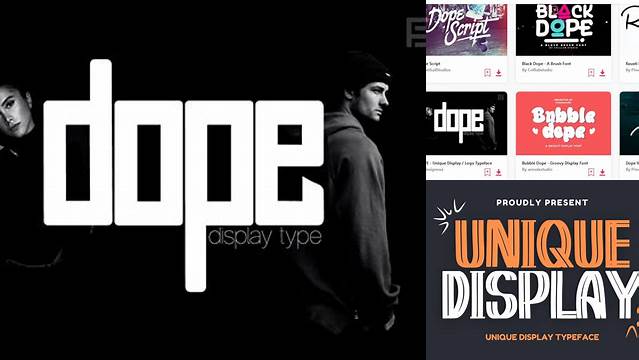
Dope Unique Display Fonts: Free Download Guide & Top Picks
Hey design enthusiasts! Are you on the hunt for some seriously dope unique display font free download options to elevate your projects? Look no further, because we're diving headfirst into the world of eye-catching typography. Whether you're a seasoned designer, a budding creative, or just someone who loves a good font, this guide is your ultimate resource. We'll explore the coolest fonts, where to find them, and how to use them to make your work pop. Get ready to transform your designs from blah to brilliant with the power of a killer font!
1. Unleashing the Power of Display Fonts: What Makes Them Unique?
Alright, guys, let's talk about display fonts. What exactly are they, and why are they so awesome? Unlike those trusty body fonts you use for paragraphs, display fonts are all about making a statement. They're the bold headlines, the eye-catching titles, the elements that instantly grab your attention. They're designed to be seen, to be noticed, and to inject personality into your work. Dope unique display font free download choices are your secret weapon for creating designs that stand out from the crowd. These fonts often feature distinctive styles, elaborate details, or unconventional designs that are far from the everyday. This means they can bring an artistic flair to posters, websites, logos, and any project that needs a touch of visual flair. A well-chosen display font can communicate tone and style at a glance, conveying everything from a modern feel to a vintage vibe. It is important to remember that the right display font can be the cornerstone of a successful design. Think about how a unique typeface can shape the impression your project gives; it's like the ultimate visual introduction. Plus, they often include creative ligatures and alternate characters, allowing for even more customization and artistic expression. From sleek and minimalist to bold and elaborate, the possibilities are endless when you start using display fonts!
One of the main advantages of using display fonts is their capability to set the mood. They are much more than just letters; they are visual representations of emotion and aesthetic. When selecting a display font, think about the message you wish to convey. A sleek, modern font might be ideal for a tech startup, while a retro font could be perfect for a vintage-themed event. The design world is changing, and a dope unique display font free download lets you experiment and get your message across. Because they're meant for short bursts of text, they can be bolder, more intricate, and playful than fonts that have to work for a large body of text. They're your secret weapon for creating something fresh and memorable. These fonts create an emotional connection with your audience and make your designs unforgettable. So, whether you're working on a personal project or a professional campaign, display fonts can change everything. The use of display fonts is an excellent way to turn your work into an original piece. This not only highlights the aesthetic appeal of the design but also strengthens the overall message. So, next time you're looking to give your project a boost, remember the power of a dope unique display font free download!
4. Top Display Font Styles: Trending and Timeless Options
Let's talk styles, shall we? The world of display fonts is vast and diverse. There are a ton of amazing options available. Here are some of the most popular styles, plus some options for your very own dope unique display font free download experience. First off, we have serif fonts. These are classic and elegant, with small strokes at the end of the letterforms. They bring a sense of tradition and sophistication to your designs. Then there's the sans-serif fonts. These are clean, modern, and perfect for a minimalist aesthetic. They lack the strokes and are great for readability, especially on screens. We also have script fonts. These mimic handwriting and add a touch of personality and flair to your designs. They're perfect for invitations or anything that needs a personal touch. Now for bold and chunky fonts, which make a statement. They're great for grabbing attention, perfect for headlines and logos. Finally, we have retro and vintage fonts, which add a nostalgic feel to any project. They're often inspired by older design styles. When choosing a display font, consider the overall tone of your project. Select a font that complements your message and target audience. Experimenting with different styles is key to finding the perfect fit for your project. Each style has its own unique vibe, allowing you to create designs that capture your intended emotion. Always consider your audience and the intended function of your design. Don’t forget that the possibilities are endless, so explore and see what works best for you! You can experiment with different combinations of fonts until you find the perfect match. With these display styles and free font options, you're well on your way to finding a dope unique display font free download to meet your project's needs.
5. Pairing Display Fonts with Other Typefaces: A Guide to Harmony
Guys, choosing a display font is just the beginning. A great design often involves pairing it with other typefaces. Display fonts work best for headlines or short bursts of text. However, you will need to complement them with other fonts for body text, subheadings, and other design elements. The key is balance and harmony. Avoid using too many different fonts in one project. This can make the design look cluttered and disorganized. Aim for a maximum of two or three font families. Consider choosing a font that has a display and a text version. This helps maintain consistency throughout your design. Contrast is your friend. Pair a bold display font with a clean, readable body font. The contrast can make the design pop. When you are searching for a dope unique display font free download, think about what you want to pair with it. Some fonts are designed to be used together; explore the font family to see the available styles. Make sure your fonts work well together. Look for combinations that feel right and create a unified design. Think about the overall message of your design. Is it modern? Is it classic? Your fonts should reflect that message. Experiment with different pairings until you find what suits you. Think about your design's readability. The goal is to give your audience an easy time to read your design, so readability is very important. By mastering the art of font pairing, you can create a design that is both visually appealing and easy to navigate. That balance ensures the message gets across clearly and effectively. Remember to choose fonts that create a cohesive design, so the audience can understand your intention. With the right combination, your project will be a success, especially with the help of a dope unique display font free download.
6. Display Fonts for Logos and Branding: Making a Statement
Logos and branding are all about making a lasting impression. Choosing the right display font can play a huge role in setting your brand apart. When it comes to logo design, the display font is often the star of the show. This is your chance to create a unique identity that people remember. Your logo is more than just text; it is a visual representation of your brand's personality and values. A well-chosen display font can communicate professionalism, creativity, or anything else you're trying to convey. Before you dive into the world of dope unique display font free download, consider your brand's values and mission. What feeling do you want your logo to evoke? Is it modern, vintage, or something in between? This will guide you in the selection of fonts. Pay attention to the specific features of your font, like the shapes, weights, and special characters. Choose a font that aligns with your brand's aesthetic. Use the logo font across your branding materials, such as your website, business cards, and social media profiles. Consistency is key! Test out the font in different contexts, such as different sizes and backgrounds. The font should be readable and recognizable in all situations. A well-crafted logo using a dope unique display font free download will help you create a brand identity that lasts. The logo you choose will stay with you throughout your branding efforts.
7. Display Fonts for Web Design: Readability and Aesthetics
Web design is a delicate balance of aesthetics and functionality. Display fonts can add a touch of personality to your website. The trick is to do so without sacrificing readability. A visually appealing website attracts visitors and keeps them engaged. Start by making sure your display font is readable on different devices and screen sizes. Responsiveness is a must in web design. Your website will need to adapt to different screen sizes. This means ensuring that the display font is readable on mobile devices as well as desktops. Consider the size and spacing of the font. The font should be large enough to read easily. Adjust the line spacing, or leading, so that the text doesn't look cramped. Balance the display font with a readable body font. Your body text should always be easy to read. Look for a font that complements the display font. Test the font on different backgrounds. It should still be readable. If your display font is unique and bold, keep the body font simple and clear. This will ensure that the content remains accessible and easy to read. When you're searching for a dope unique display font free download, keep the user experience in mind. You should think about the user experience. Remember, the goal is to deliver a website that is both attractive and easy to navigate. A great website is attractive and also keeps the audience engaged. With the proper display font choices, you can create a website that will be both engaging and visually appealing. By using the right font, you can make sure your content is read and enjoyed. That is why, when designing your website, a dope unique display font free download will make it visually appealing and functional.
8. Display Fonts for Posters and Flyers: Creating Visual Impact
Posters and flyers are designed to grab attention, and your choice of font plays a crucial role in their success. Whether it is a promotional event or a community announcement, the right font can make all the difference. Display fonts are the perfect tool for making your posters and flyers stand out. Use bold and unique fonts to capture attention and set the tone. When designing posters, consider the visual hierarchy. The most important information should be bold and prominent. Use larger font sizes for headlines and subheadings, and smaller fonts for body text. Select fonts that complement the message of the poster. Match the font to the event. The goal is to make the most of the design. Make sure the font is legible. People need to read it quickly. Ensure your font looks good on different backgrounds and at a range of sizes. Try experimenting with different font combinations. A well-chosen font can complement the overall design and convey your message effectively. Your posters and flyers are a great chance for a dope unique display font free download and a chance to make your statement. Always make sure that the font aligns with your design. A well-crafted poster can make the difference in the success of your event, so you can achieve your goals. When you choose a font, make sure it communicates your message effectively. These things are important for a successful design. Remember to find the perfect dope unique display font free download for your design needs.
9. Display Fonts for Social Media: Captivating Your Audience
Social media is all about visual storytelling, and your font choices can significantly impact how your content is perceived. Display fonts are a great way to capture your audience's attention and make your posts stand out. When designing social media content, remember that you need to capture attention quickly. Use bold and eye-catching fonts for headlines and key information. Ensure that the font is easy to read on smaller screens, like your mobile phone. Test the font on different backgrounds. If you are looking for a dope unique display font free download that looks good on social media, consider the platform's aesthetics. Each platform has its own visual language, so make sure your font choices align with the platform's style. A consistent brand identity across your social media platforms is a must. Use the same fonts, colors, and styles to create a cohesive look. Experiment with different font combinations and styles to create engaging content. The more you experiment, the more you know what your audience likes and what fits your brand. Display fonts can add personality and flair to your social media posts. A captivating social media profile will get you a better chance to reach a wider audience and boost engagement. A dope unique display font free download will help your social media content stand out.
10. Advanced Typography Tips: Mastering Display Fonts
Ready to take your display font skills to the next level? Here are some advanced typography tips to help you master the art of display fonts. Experiment with kerning and tracking. These are the spaces between individual letters and words. Adjusting these can improve the readability and visual appeal of your design. Use ligatures. These are special characters where two or more letters are combined into one. Ligatures add visual interest and make the design look professional. Consider the weight and size of the font. Adjust the size and weight to create contrast and visual hierarchy. Test your font in different contexts. Test it on various backgrounds, sizes, and devices to ensure readability. Choose a font that complements the design's overall aesthetic. The font should match the message and the brand’s identity. Use the display font to add personality and flair to your design. Display fonts are the key to making your work stand out. Always look for a dope unique display font free download that fits your project perfectly. These are advanced typography tips to get you on your way to success. Always remember to be creative and enjoy the process. By implementing these tips, you can use display fonts and create visually appealing and effective designs.
11. Common Mistakes to Avoid When Using Display Fonts
Even the best designers can make mistakes. Here are some common pitfalls to avoid when using display fonts. Firstly, don't overuse display fonts. These fonts are meant for headlines and short bursts of text, so avoid using them for large blocks of text. They aren't made to be used for long paragraphs. Next, don’t choose a font that is difficult to read. Always make sure that your font is readable, even at smaller sizes. Also, avoid too many fonts. Stick to a limited number of fonts to create a consistent look and feel. Too many fonts can make your design look disorganized and unprofessional. When looking for a dope unique display font free download, make sure to avoid illegible fonts. Select a font that fits the design. The wrong font can ruin your design. Don't forget to check the license. Be careful about using fonts for commercial purposes. Ensure that you understand the license before downloading and using the font. Moreover, when working on your project, consider that the goal is to create something that works for the audience, not for the designer. By avoiding these mistakes, you can create compelling designs. These things will help you get the best result. When choosing a dope unique display font free download, make sure to consider all of these points to improve your designs.
12. Display Font Trends in 2024: What's Hot Right Now
Design trends are always changing. Let's take a look at some of the hottest display font trends in 2024. The minimalist look is always popular, with clean, simple fonts that are easy on the eyes. These fonts are great for modern designs. Retro fonts are still in style. They add a vintage look, great for vintage-themed projects. The hand-drawn fonts are getting more popular, as they add a personal touch to your designs. These fonts are excellent for adding some personality to your design. Bold and chunky fonts are always in style. They can grab the attention of your audience immediately. Experimenting with different fonts is always a good idea. You can always look for a dope unique display font free download to test them out. Choose a font that resonates with your project. Using trendy fonts is a great way to keep your designs current and appealing. Always keep in mind what your brand is. The choice of font should reflect what you are offering your audience. Remember, trends come and go, but the fundamentals of design will always be present. Keep your eye on the trends, and you will be successful. These trends are excellent guides to improve your design and get the most out of a dope unique display font free download.
13. Display Font Inspiration: Creative Examples and Case Studies
Looking for some inspiration? Let's explore some creative examples of display fonts in action and case studies of successful designs. Some designers use display fonts for logos and branding, helping businesses create unique identities that are both memorable and recognizable. Other designers use them in posters and flyers to grab attention. Look for a dope unique display font free download and see how it applies to your project. Display fonts are a great option for social media content and web design. Web design is also a great place to use display fonts. See how the design works. The key is to see how these fonts can be incorporated into your own projects. Study successful designs to learn about how designers combine fonts, colors, and imagery. This will help you to understand how to use fonts effectively. You can also use display fonts to create unique layouts and layouts. The possibilities are endless, so try to experiment with different fonts to make your designs unique. With the right font, you can transform the project into something unique. Use examples to get inspired and see what will work best for you. Using case studies and creative examples to learn more about display fonts and improve your skills. These studies will give you inspiration to use dope unique display font free download.
14. Display Fonts vs. Other Font Types: Differences and When to Use Each
Understanding the differences between display fonts and other font types is important. Let's take a closer look at the variations and when to use each. Display fonts are designed to be eye-catching. They are ideal for headlines, titles, and short bursts of text. They're designed to create visual impact. Body fonts are different, as they are intended for long paragraphs of text. They are legible and easy to read. They are also used for the body of your content. Script fonts look like handwriting. They add a touch of personality and flair to your designs. Slab serif fonts are a hybrid of serif and sans-serif fonts. They have thick, blocky serifs. When it comes to design, each type has its purpose. Choosing the right font will improve the design. If you are searching for a dope unique display font free download, you should always check the font type and see if it fits what you are trying to do. Use display fonts for headlines, and use body fonts for the body of your text. Consider the message you want to convey. Also, make sure the font is readable at various sizes. By understanding the differences between these font types, you can make sure that the project is a success.
15. Choosing the Right Display Font for Your Project: A Step-by-Step Guide
Choosing the right display font is a crucial step in creating a successful design. Let's go through a step-by-step guide on how to choose the perfect font for your project. Start by defining the purpose of your project. What message do you want to convey? Identify your target audience. What are the preferences of your target audience? Think about the mood you want to set. Is your design modern, vintage, or playful? Check for a dope unique display font free download and test it in the design. Consider your brand's personality. Make sure the font aligns with your brand’s image. Research different font styles. Explore your options, such as serif, sans-serif, script, and others. Create a shortlist of fonts. Select a few fonts that fit your criteria. The fonts you choose should work in all scenarios. Test the font in your design. See how it looks in various sizes, backgrounds, and layouts. Get feedback from others. Ask for opinions from friends, colleagues, or potential customers. Make sure the font is readable. Readability is the most important part of the design. By using this guide, you can find the perfect font for your project. Choose your favorite dope unique display font free download and use it for your project to make sure that it works well.
16. Display Font Resources: Where to Find Inspiration and Ideas
Inspiration can come from everywhere. Let's explore some resources and places where you can find ideas for display fonts. Online font libraries, like Google Fonts and Font Squirrel, are a great option. Explore these libraries and discover new font styles. Design blogs and websites are another great resource. Read them to learn about the latest design trends. Social media platforms like Pinterest and Instagram are also a great option. Search for inspiration. Look for designs with fonts. Also, check design marketplaces like Creative Market. These platforms feature new fonts and design elements. Use these resources to enhance your creativity. You can also look for a dope unique display font free download in these places. Also, you should consider design books and magazines. They are an excellent resource for design. These resources will help you find inspiration, and you'll discover new ideas. Consider these resources when you look for the perfect font. You can get your inspiration to find your perfect dope unique display font free download.
17. Display Fonts and Design Software: Compatibility and Integration
Design software plays a vital role in the creative process. Let's discuss how display fonts work with different design software. Most design software programs, like Adobe Photoshop and Illustrator, support various font formats, such as .ttf and .otf. Make sure the font you choose is compatible with your software. Install the font on your computer and then use it in your design software. Always select a dope unique display font free download and install it. Font management tools are also available. Manage your fonts with programs. Font management tools help you organize and activate your fonts. Test the font in your design software. Ensure that it appears correctly, and it is readable. If you are working on a project, make sure your software is up to date. Check for updates to ensure the best performance. Test it. You can always experiment with different settings to achieve the desired look. If you are using various display fonts in your design, you should make sure that everything works. Using these tips will enhance your design workflow. You can create visually appealing designs that work with the software. Make sure you find the perfect dope unique display font free download that works best for your project.
18. Display Fonts and Accessibility: Designing for Everyone
Accessibility is important when designing with display fonts. Let's talk about how to make your designs accessible. Make sure the font is readable. Choose fonts that are clear and easy to read, especially for those with visual impairments. Consider the size of the font. Make sure the font is large enough to read easily. Use enough contrast. Make sure there is enough contrast between the font and the background. Provide text alternatives for images. Add alt text to images that use display fonts. Use consistent font styles. Consistent use of font styles can help with readability. Test your designs with accessibility tools. Check your design with tools to find any accessibility issues. By following these steps, you can make sure that your designs are accessible. You will be able to create content that everyone can access. If you are looking for a dope unique display font free download, you should prioritize accessibility. Always remember that all designs should be available to everyone.
19. Display Fonts and Color: Creating Visual Harmony
Color and fonts are essential elements in design. Let's explore how to create visual harmony. Choose colors that complement your display font. The colors should match the font's style and personality. Test your colors. Make sure the text is readable on different backgrounds. Use contrast to make the text stand out. The text needs to be readable. The colors should create a balance. Use a limited color palette. Too many colors can make your design look cluttered. Pay attention to the color's meaning. Colors can evoke different emotions. Consider the brand's image. Use the colors that match the brand. You can use a dope unique display font free download to match it. Always make sure the color is visible and enhances the project.
20. Display Fonts and Motion Graphics: Adding Dynamic Effects
Motion graphics are a great way to create engaging content. Let's explore how to use display fonts in motion graphics. Animate your display fonts. You can make the font move or animate. Experiment with different animation effects. Use the font in your videos. Make sure the font matches the video's content. Test the font. Ensure that the font is readable, even during the motion. Always be creative. Use the display font in innovative ways. Use the font to communicate your message. Enhance the video with typography. Think about the timing. The font's appearance should match the video's content. You can use a dope unique display font free download. The use of these fonts will boost the impact of your project.
21. Display Fonts and Print Design: Ensuring High-Quality Output
Print design and display fonts must work together. Let's talk about how to ensure high-quality results. Make sure the font is high-resolution. Use a font that looks sharp in print. Convert your text to outlines. This can prevent font issues. Use the right color mode. Use the right color for printing. Test the print. See how the font looks in print. Choose a font that's suitable for printing. Choose the right font. Be creative. Use the font to make your project stand out. Remember that using display fonts will make the project look more professional. Get a dope unique display font free download. By using the right fonts, you will achieve your goal.
22. Troubleshooting Display Font Issues: Common Problems and Solutions
Troubleshooting display font issues is a part of the design process. Let's look at some common problems and solutions. Some fonts may not render correctly in all design software. Try installing the font again. Missing fonts may occur. Make sure the font is installed correctly on your computer. Always check the font. You can also find a dope unique display font free download to ensure the font works correctly. If the font is blurry, increase the font size. Test the font and check if it works well. Follow the instructions provided by the font designer. This will fix any problems. By troubleshooting and fixing the font issues, you'll create effective and visually appealing designs.
23. The Future of Display Fonts: Emerging Trends and Innovations
The design field is constantly changing, including display fonts. Let's look at the emerging trends and innovations. We are now seeing the rise of variable fonts. These are a newer type of font. They have several weights and styles, and you can customize them. There are also some 3D fonts, which are used in motion graphics. You can also see customized fonts, where fonts can be designed to meet specific needs. Artificial intelligence is impacting font design. The use of AI is impacting the creation of new fonts. Always be creative and test new fonts. You can also look for a dope unique display font free download. By using these trends and innovations, you can be creative with your projects.
24. Display Fonts and User Experience (UX): Designing for Impact
User experience is the central part of design. Let's explore how display fonts can impact UX. Use the font to get the user's attention. The display fonts should highlight the most important parts. Font size is very important. Always make sure that the font is readable. Consider the design of your project. The font should work with the rest of your design. Choose the right font. Ensure that the font is usable. Ensure the font does not impact user experience. Always test the font. You should always test the font to make sure it works well. Always use the font for an amazing user experience. This is important in every aspect of design. Always search for a dope unique display font free download.
25. Display Fonts and Cultural Sensitivity: Avoiding Missteps
Cultural sensitivity is important when designing. Let's look at how to avoid any missteps when using display fonts. Always research the cultural background. Fonts may have cultural connotations. Make sure you understand it. Avoid offensive fonts. Never use any inappropriate fonts. Consider the audience's values. Always make sure that your project does not offend anyone. Choose fonts that match your audience's values. Research the local customs. Make sure your designs are respectful. Always remember the user. Test your design. See if it works in various contexts. If you are searching for a dope unique display font free download, always remember this. Make sure that the font is not offensive. Always show respect for cultural diversity.
26. Display Fonts and the Evolution of Design: A Historical Perspective
Throughout history, display fonts have changed. Let's explore the evolution of the design. The history of design is very important. Display fonts have evolved over time. From the printing press to the digital age. Display fonts have adapted to changes in technology. Always learn about design history. This will help you select the right font. Choose a font that matches the time. If you are looking for a dope unique display font free download, think about history. Always get inspiration. This will also help you select the right font. Display fonts have shaped the world of design.
27. Display Fonts and Data Visualization: Communicating Complex Information
Data visualization is key when it comes to communicating information. Let's explore how display fonts are used in data visualization. Display fonts can be used to highlight key data points. Use fonts to get the user's attention. Use fonts to create a visual hierarchy. The user will have a better understanding. Make sure the font is easy to read. The user should not get confused. Always use a dope unique display font free download. This will enhance your design. Choose the right font to enhance the project. Display fonts have the power to communicate information effectively.
28. Display Fonts and the Environment: Sustainable Design Practices
Sustainability is important in modern design. Let's look at how display fonts play a role in the environment. You can use fonts that are eco-friendly. The designs you use should be sustainable. You can also create designs that are environmentally friendly. Use fonts to promote green causes. You can choose a dope unique display font free download. Always choose sustainable display fonts. Display fonts can be part of the change. These options can have a positive impact. The sustainability of display fonts is very important.
29. Display Fonts and Collaboration: Working with Other Designers
Collaboration is important in the design world. Let's explore how to collaborate with other designers. Always share your font resources with your team. Clear communication is key. Open and honest communication will help you achieve your goals. Always exchange ideas. The key is to share. Be open to constructive criticism. Always be respectful. Ask for feedback. If you are searching for a dope unique display font free download, share it with your team. Collaborate and always work together. Teamwork will make the project a success. Good collaboration can produce the best results.
30. Display Fonts: The Future of Typography
In the future, display fonts will evolve. The future will be interesting. More interactive fonts will emerge. New technologies will emerge. AI will impact display fonts. Always be creative and open. By knowing about display fonts, you will succeed. Display fonts will continue to adapt. The dope unique display font free download will keep on improving the design. Typography will continue to be important. The future is bright for display fonts!